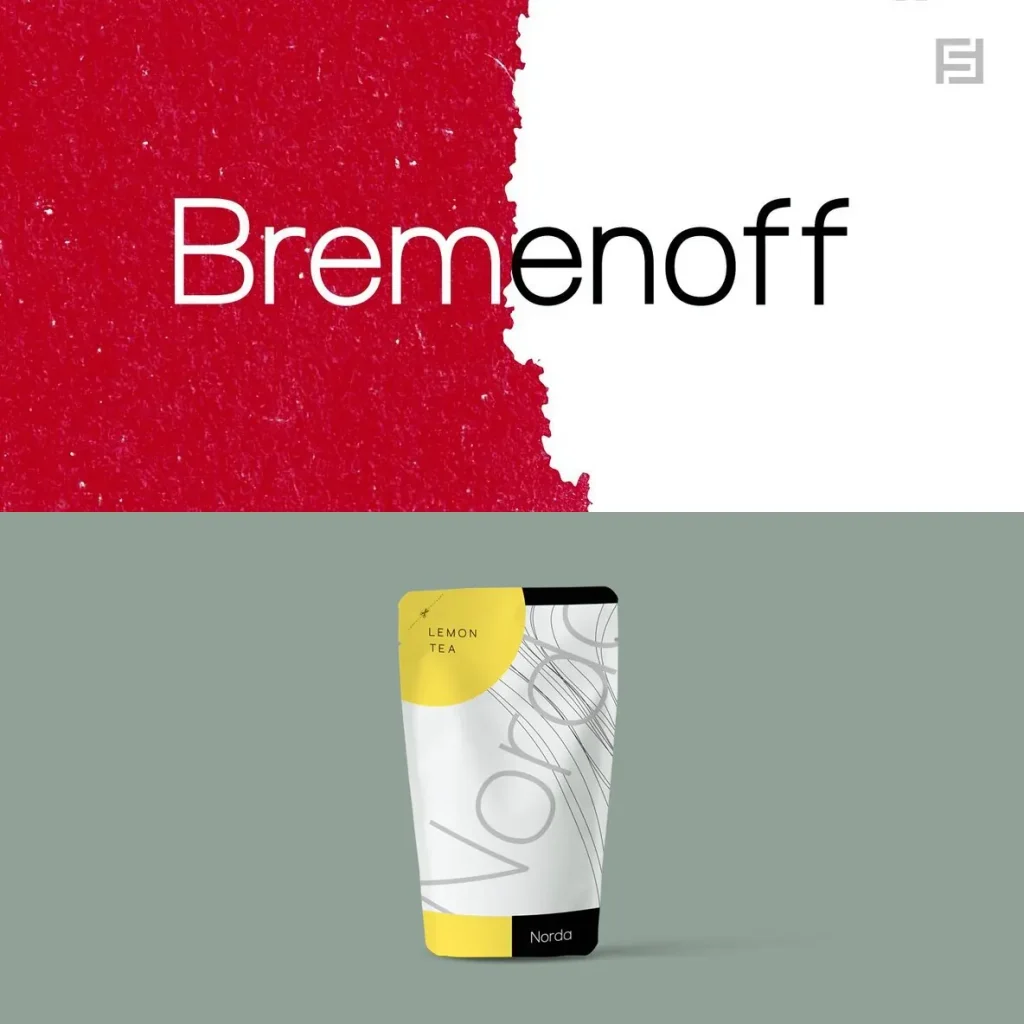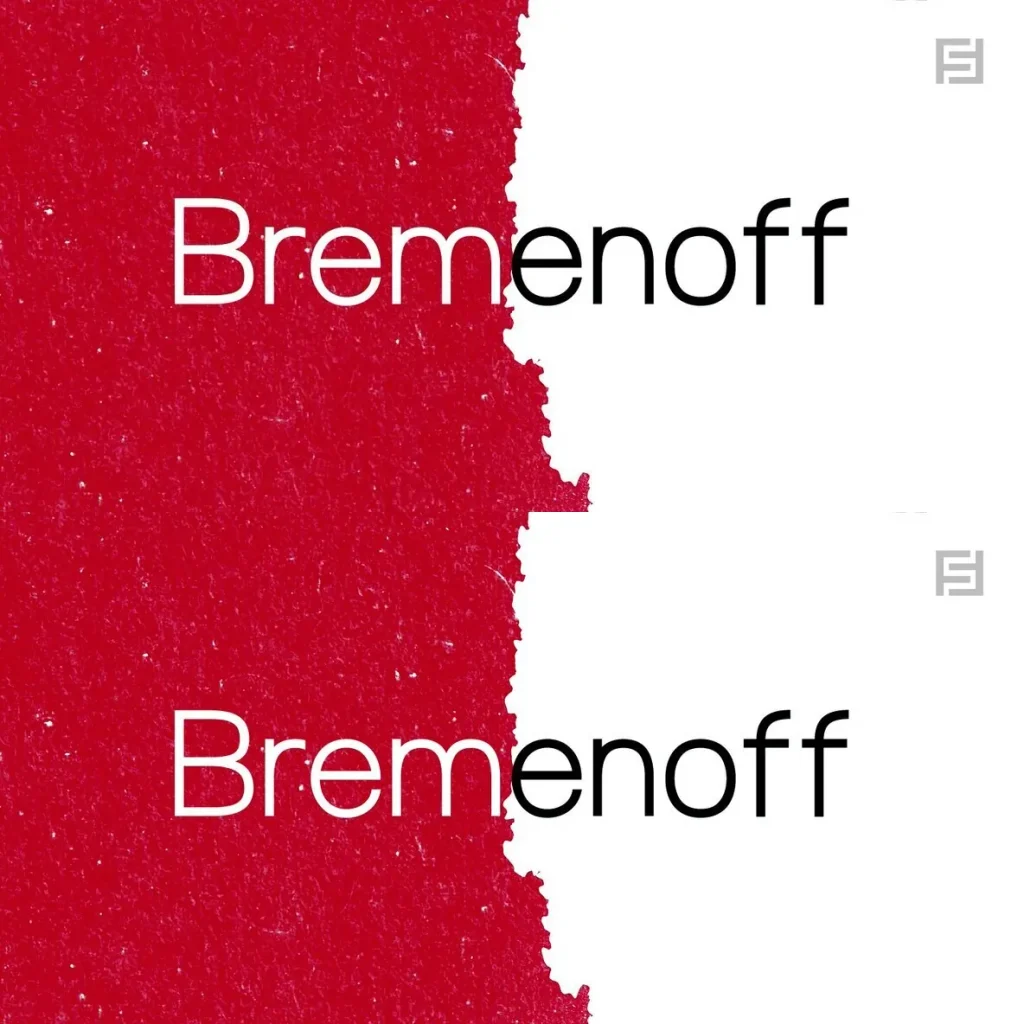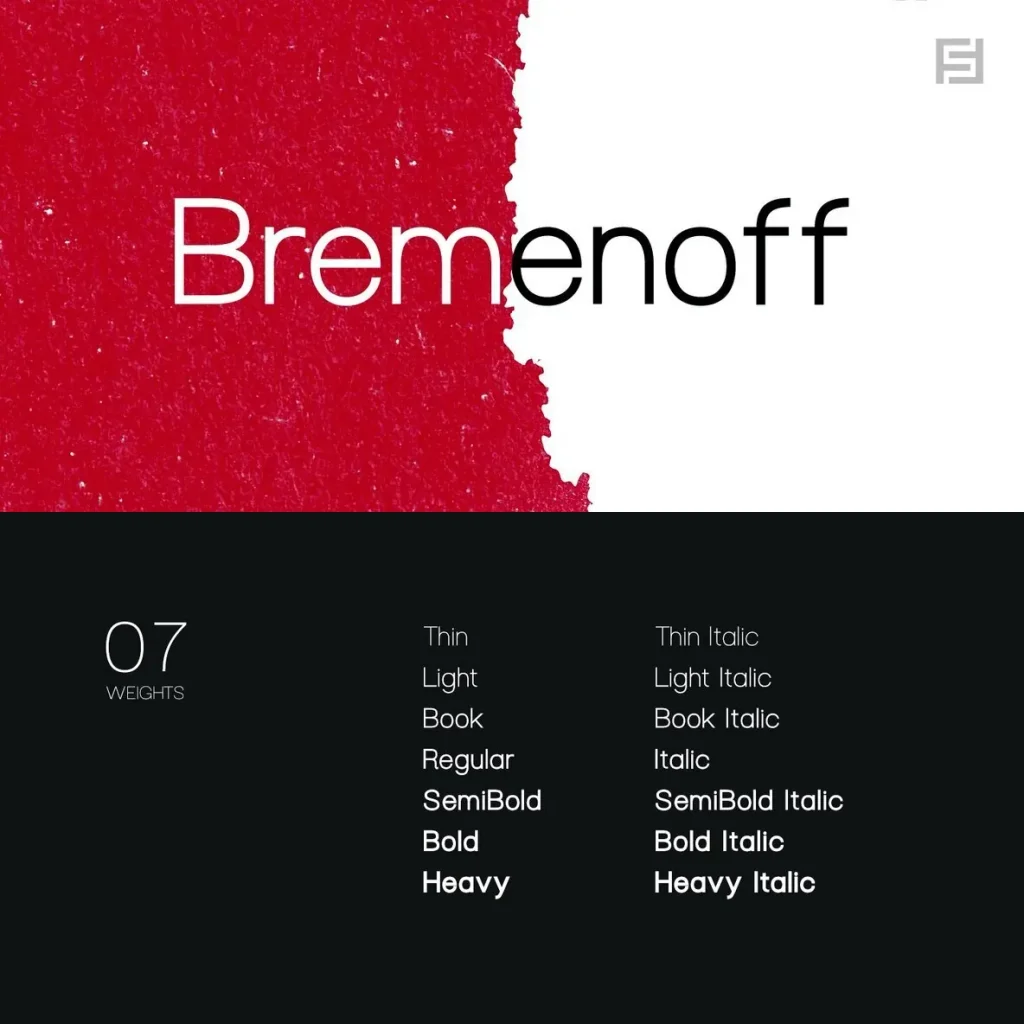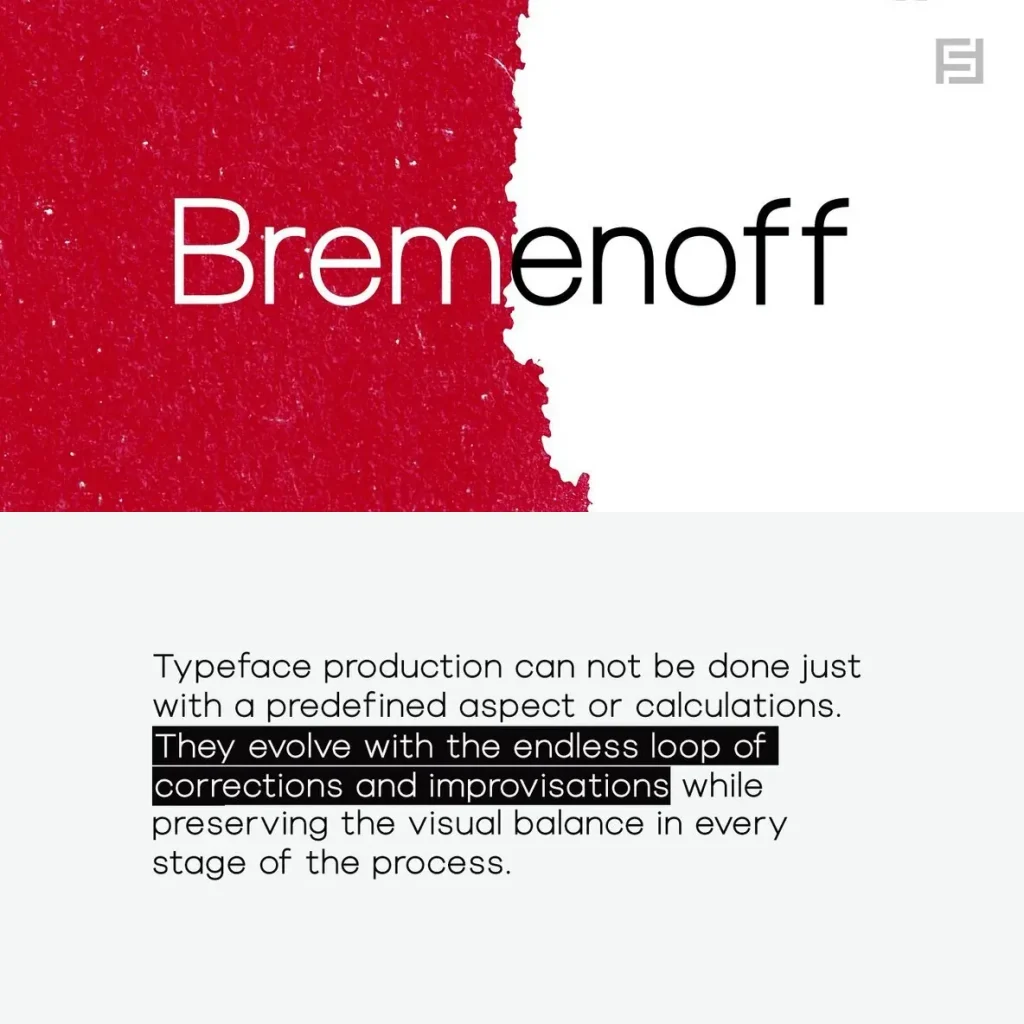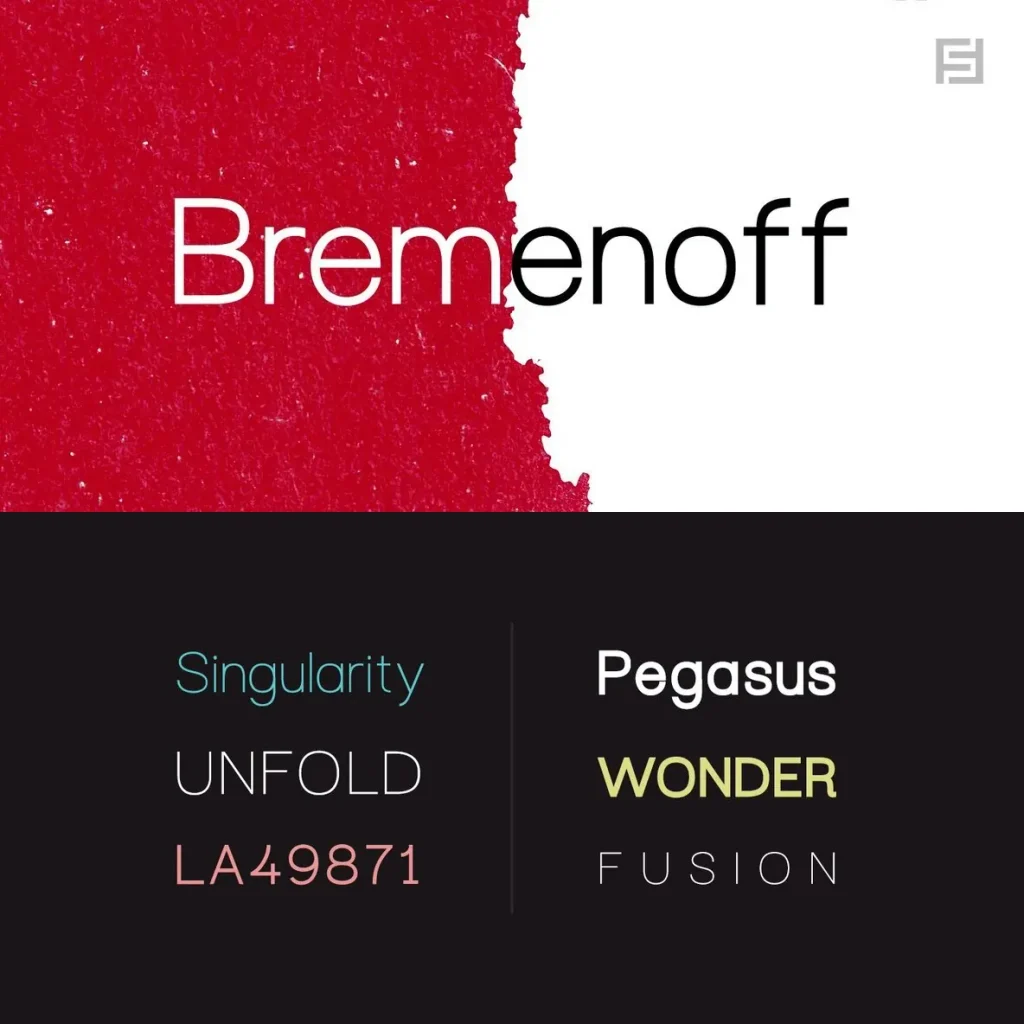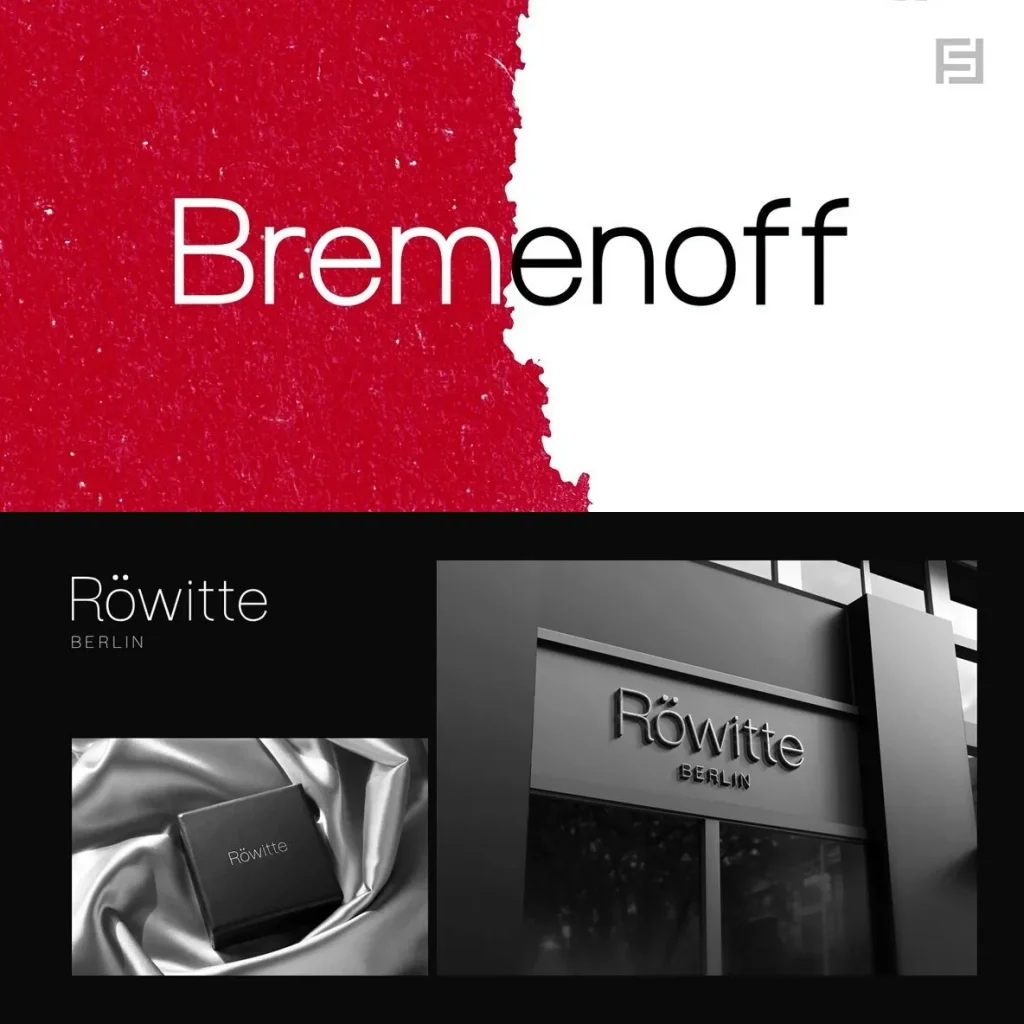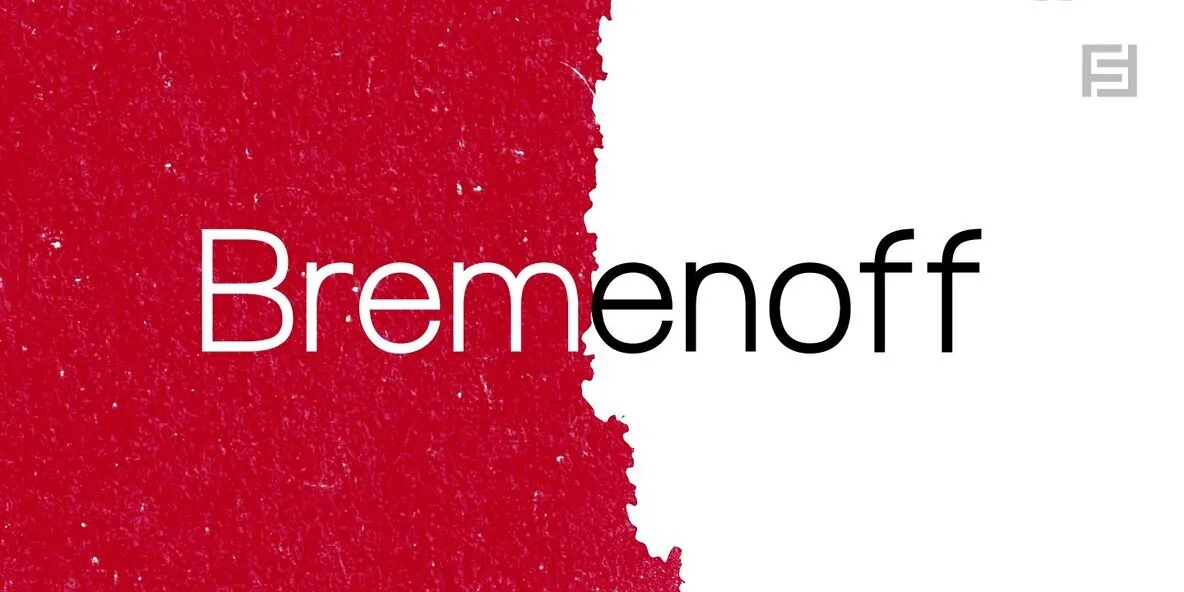
Bremenoff — Quiet Serif Authority
Bremenoff is a simple, timeless serif typeface designed with classic proportions, refined details, and elegant readability. Its balanced structure gives text a composed presence, while its subtle sophistication keeps the focus on content.
With a character suited to editorial design, branding, publications, packaging, and premium communication, Bremenoff brings clarity and polish to refined visual systems. It is a strong choice for designers who need a serif font with graceful rhythm, dependable legibility, and a lasting sense of style.